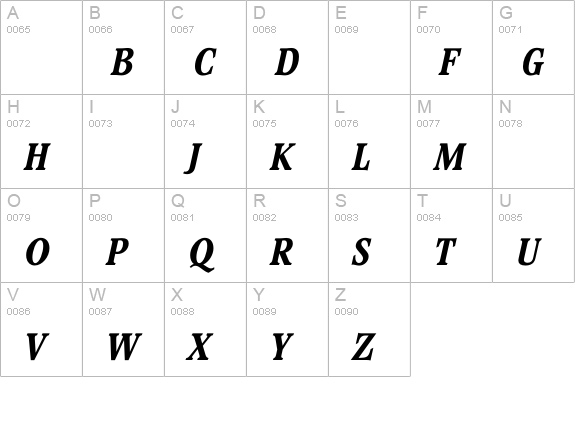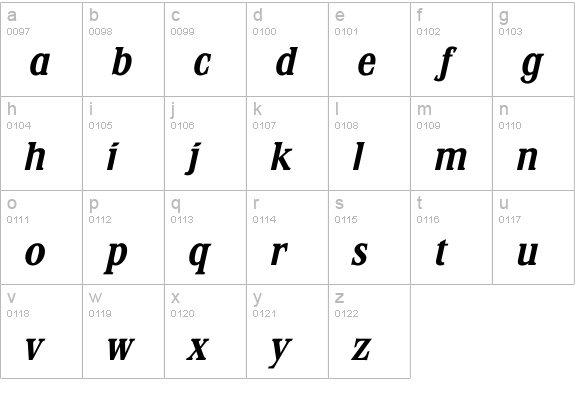
StirlingBoldItalic Font Details
StirlingBoldItalic is a striking and elegant font that exudes sophistication and charm. With its bold yet delicate strokes, this typeface is perfect for adding a touch of elegance to any design project. The italicized style adds a sense of movement and fluidity, making it ideal for conveying a sense of dynamism and creativity. What's even better is that StirlingBoldItalic is available for free download at FontsMarket.com. This means that you can easily access this beautiful font without any cost, making it a valuable addition to your font collection. Whether you're working on a branding project, a poster design, or any other creative endeavor, StirlingBoldItalic is sure to elevate your work and make a lasting impression. Download it today and unleash your creativity with this stunning typeface.